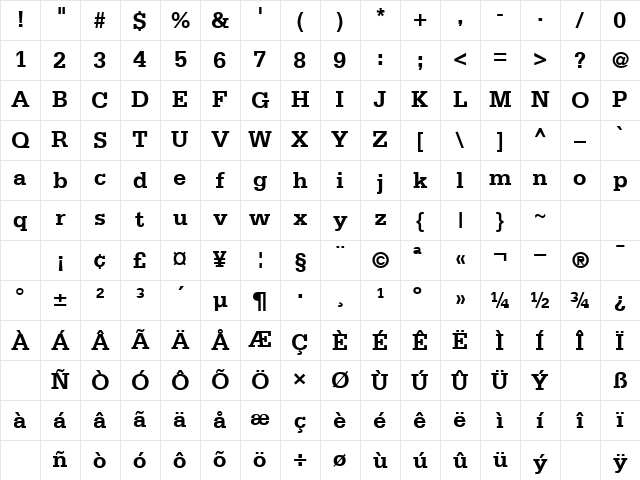
Rhyme Bold Free Font
Rhyme Bold
Design Context for Rhyme
Rhyme is a composed and adaptable typeface that performs quietly and consistently across a wide range of design contexts. Its bold stroke weight gives it real presence on the page.